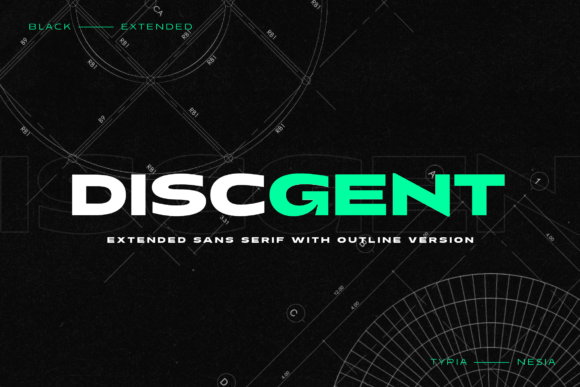
Prepare yourself to be mesmerized by Discgent Font, a typographic masterpiece crafted with elegance and boldness. This sans serif font exudes confidence and power, making it the perfect choice for projects that demand attention. Its striking presence is guaranteed to elevate your designs, adding a dynamic flair that will captivate your audience.
Unleash your creativity with Discgent Font, the ultimate tool for crafting sports-inspired designs. Its robust structure and vibrant personality make it ideal for team jerseys, league logos, movie posters, and more. Whether you're working on a documentary, film, or game, Discgent Font will infuse your project with an unforgettable energy.
With Discgent Font, you'll have a font that's as versatile as it is visually stunning. Its PUA encoding unlocks a world of possibilities, granting you access to a treasure trove of glyphs and ligatures that will transform your designs into works of art. Unleash your imagination and let Discgent Font guide you to typographic greatness.
Step into the realm of innovative typography with Discgent Font. Its versatility extends beyond sports-inspired designs, making it a perfect fit for book covers, headlines, titles, and countless other projects. Whether you're a seasoned designer or just starting your creative journey, Discgent Font will empower you to create designs that leave a lasting impression.
Don't settle for ordinary fonts that blend into the background. Embrace the boldness of Discgent Font and watch your designs come to life. Its ability to command attention is unmatched, making it the perfect choice for projects that demand to be seen and remembered.